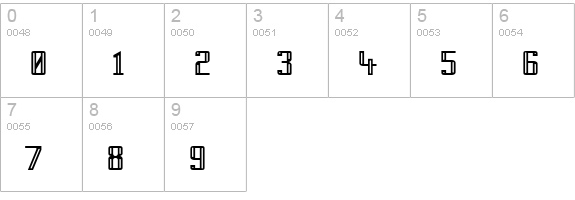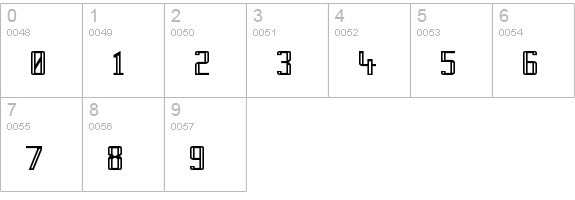
Prussian Brew Font Details
Prussian Brew font is a stylish and elegant typeface that exudes sophistication and charm. Its intricate details and vintage-inspired design make it perfect for adding a touch of class to any project. Whether you're working on a branding project, wedding invitation, or any other creative endeavor, Prussian Brew font will elevate your design to the next level. What's even better is that Prussian Brew font is completely free to download at FontsMarket.com. This means you can enjoy the beauty and versatility of this font without any cost. So why wait? Download Prussian Brew font today and start creating stunning designs that will leave a lasting impression.